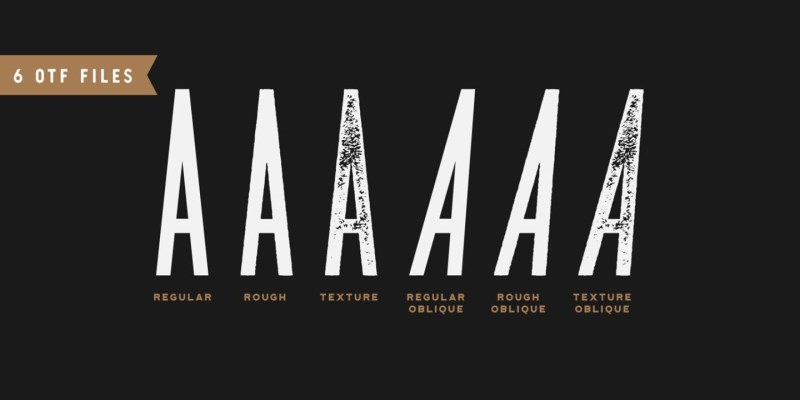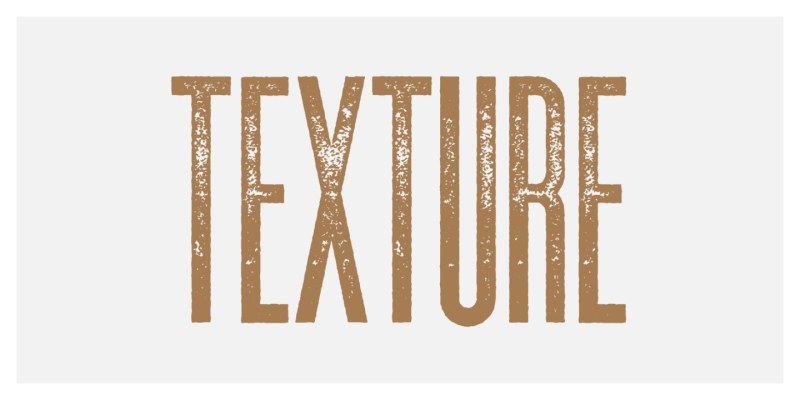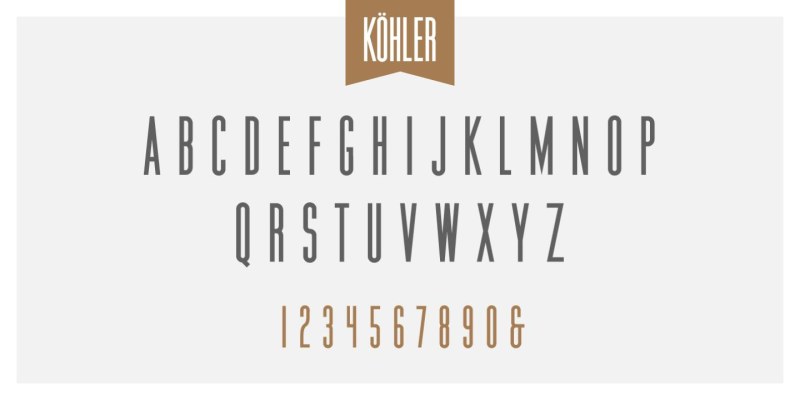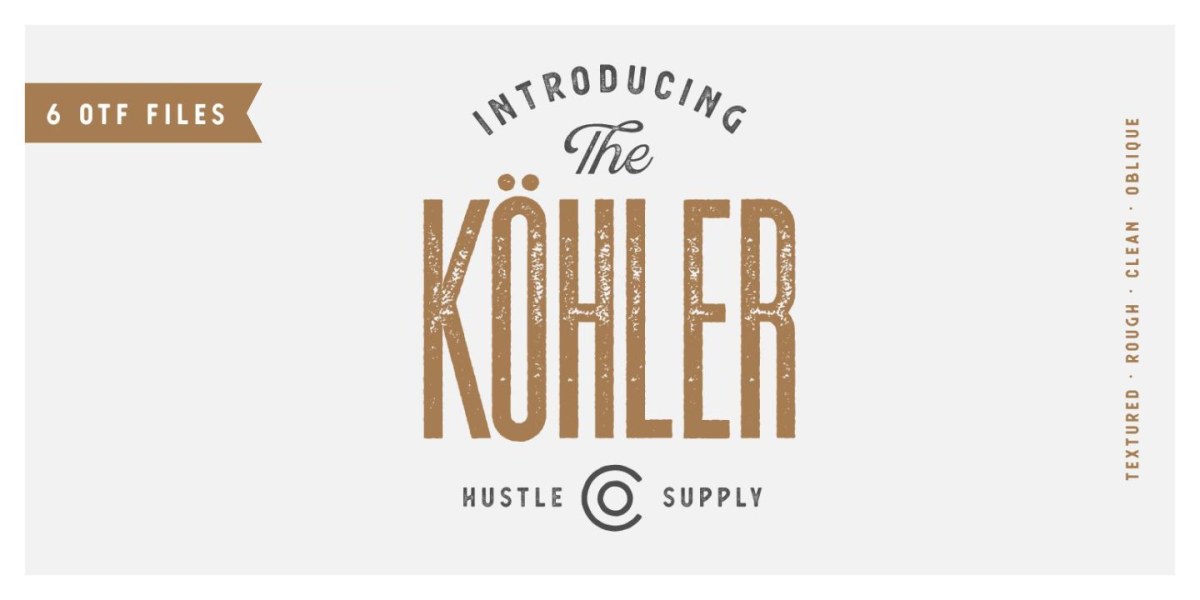
Kohler Font Family
Köhler is a Condensed Headline Type Family. Köhler comes complete with 6 OTF files. Regular, Rough, Clean & Textured with Oblique counterparts. Köhler is a super condensed typeface with a vintage aesthetic but also doubles as a great modern typeface depending on the final use.
Where Kohler Font Family works best
Kohler Font Family is built for size: event posters, hero headlines and billboard-style layouts.
High contrast display type like Kohler Font Family reads instantly in thumbnails and motion graphics.
What is Kohler Font Family good for?